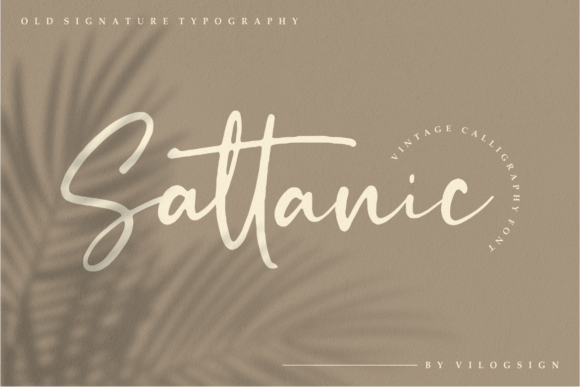
Introducing Sattanic: A captivating handwritten font family that exudes elegance and charm. Experience the allure of this signature script font and adorn your designs with a touch of timeless sophistication. Curated by Vilogsign, Sattanic is a work of art meticulously crafted to satisfy your creative desires.
Escape the mundane and embrace the extraordinary with Sattanic, a font that evokes emotions and breathes life into your digital creations. This vintage script font is more than just a collection of letters; it's a gateway to a world of imagination and possibility. With its beautiful curves, playful connections, and delicate details, Sattanic will transform your words into heartfelt expressions of artistry.
Unleash your creativity and explore endless possibilities with Sattanic's extensive character set. Alternative letters and ligatures add a touch of individuality, allowing you to customize your designs and make a lasting impression. From heartfelt love letters to elegant invitations, from captivating social media posts to stunning logos, Sattanic seamlessly adapts to your every need.
Indulge in the allure of Sattanic, a font that embodies the spirit of modernism and professionalism. Its timeless design transcends trends and ensures that your projects remain relevant and captivating for years to come. Whether you're a seasoned designer or just starting your creative journey, Sattanic is the perfect companion to elevate your projects to new heights.